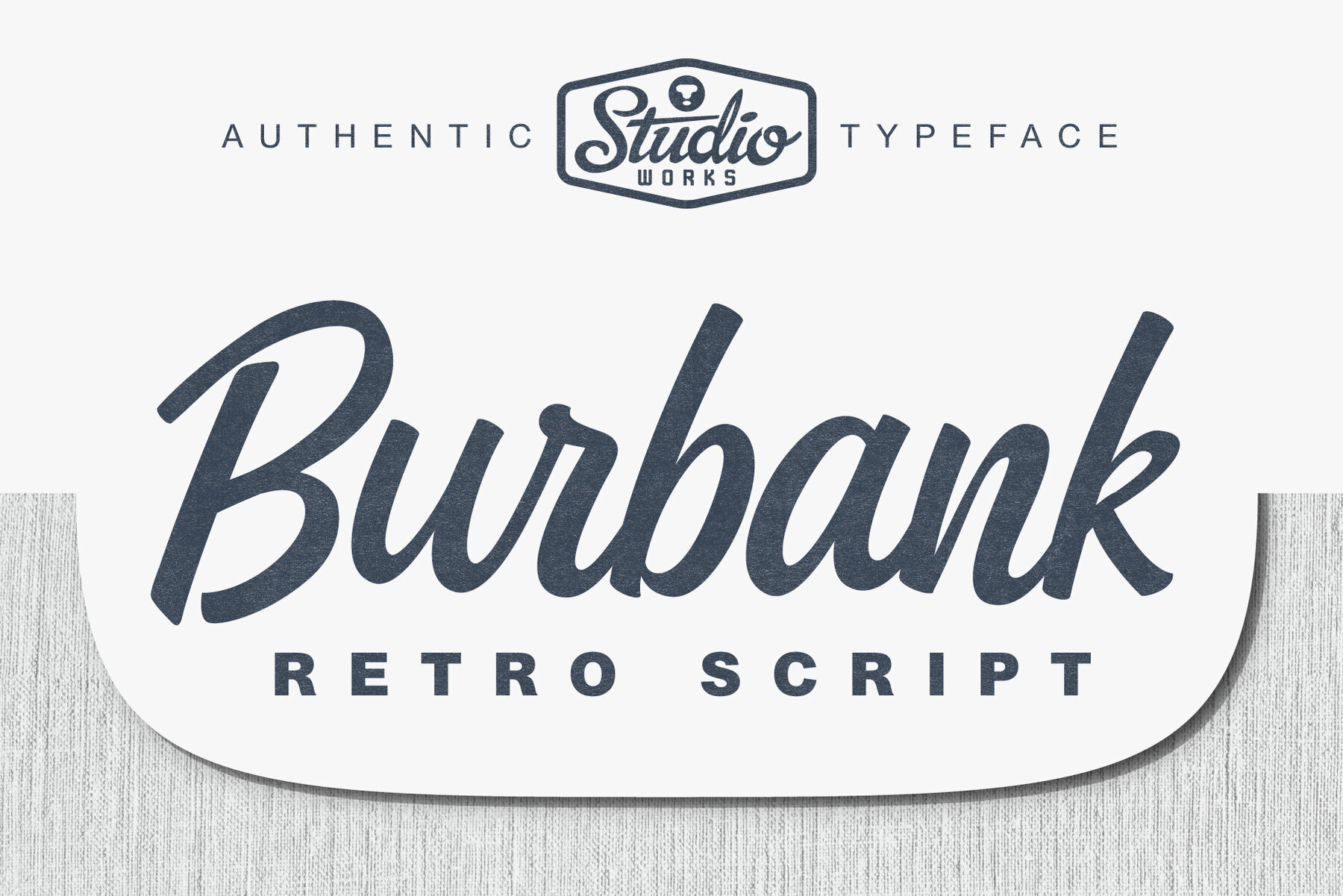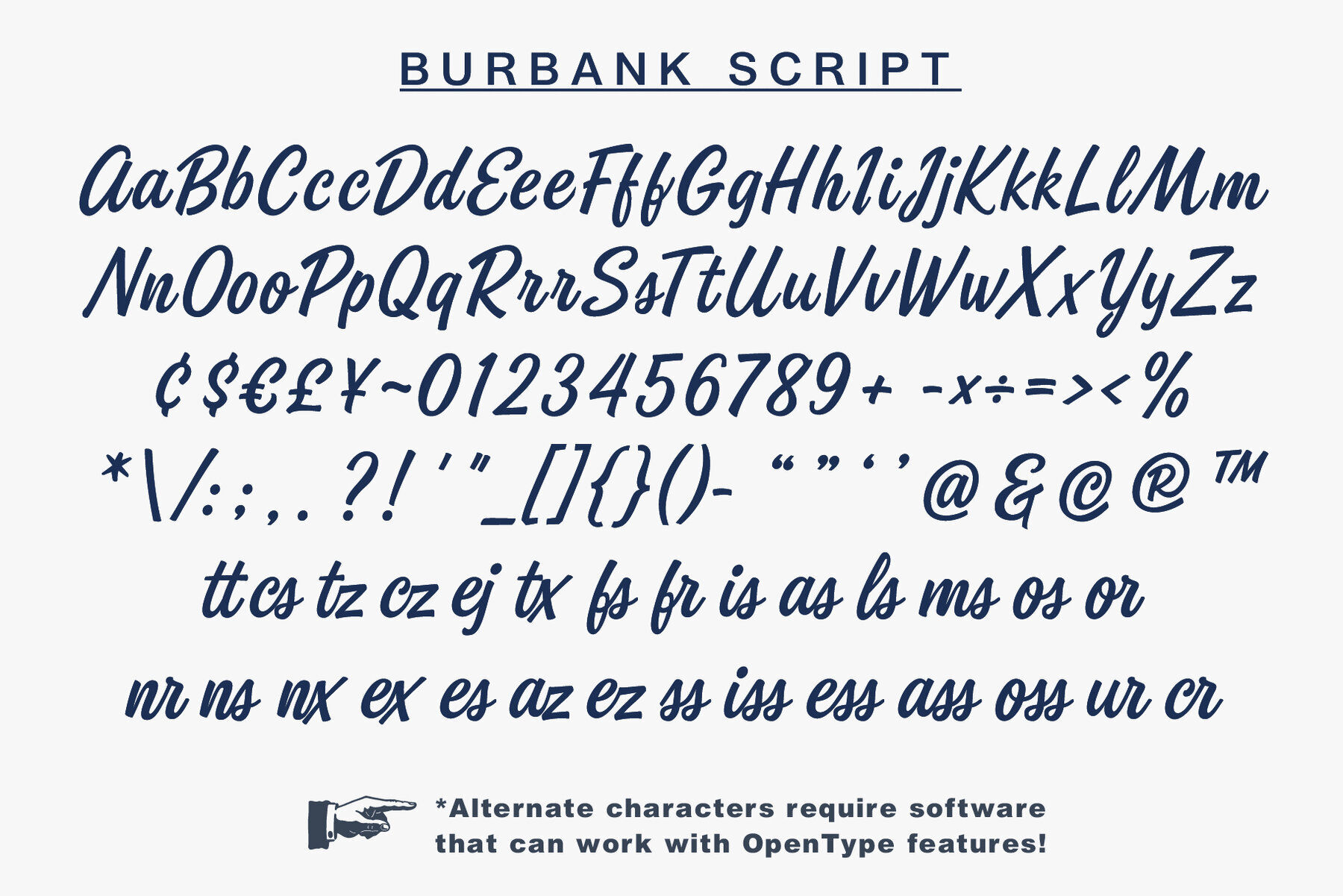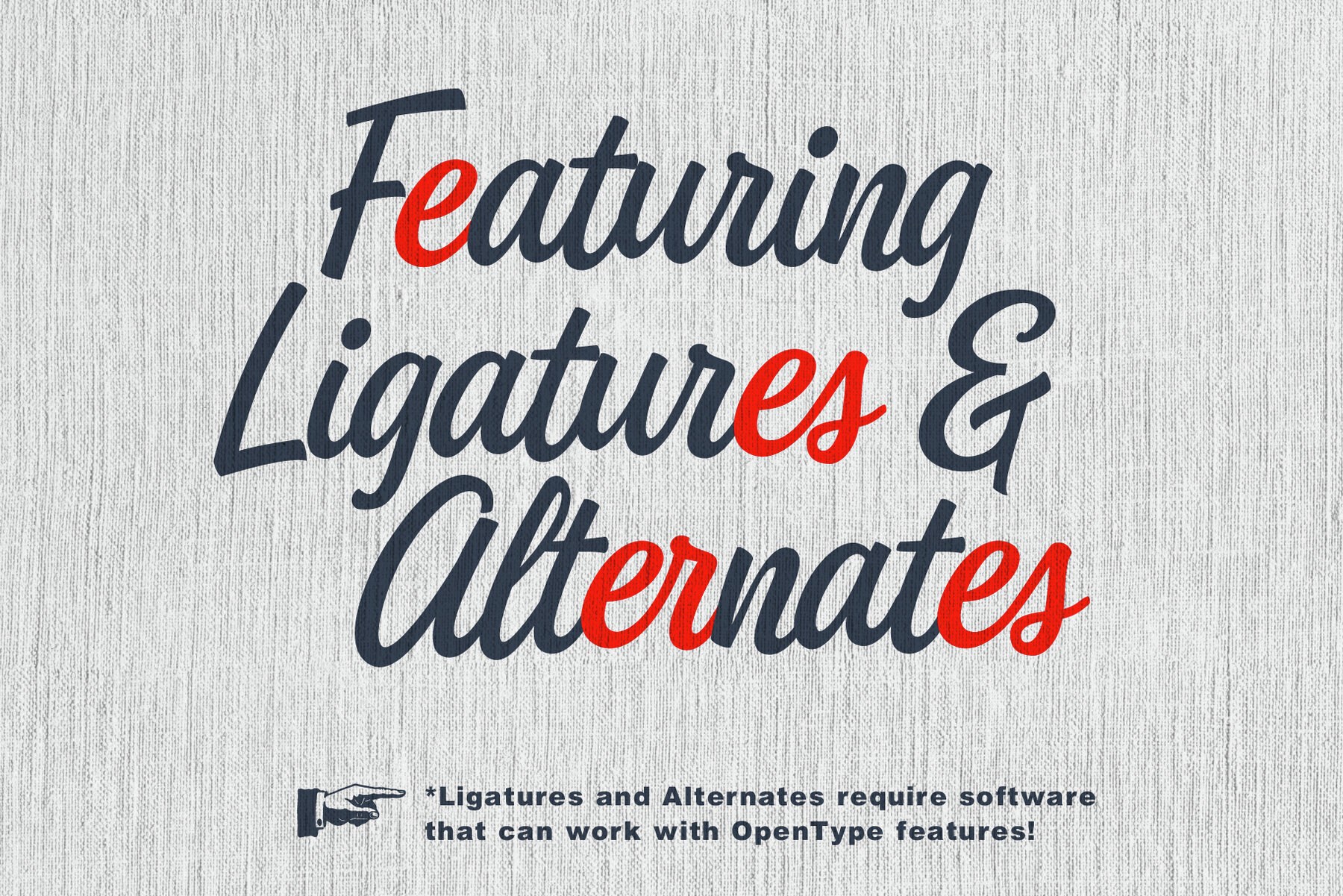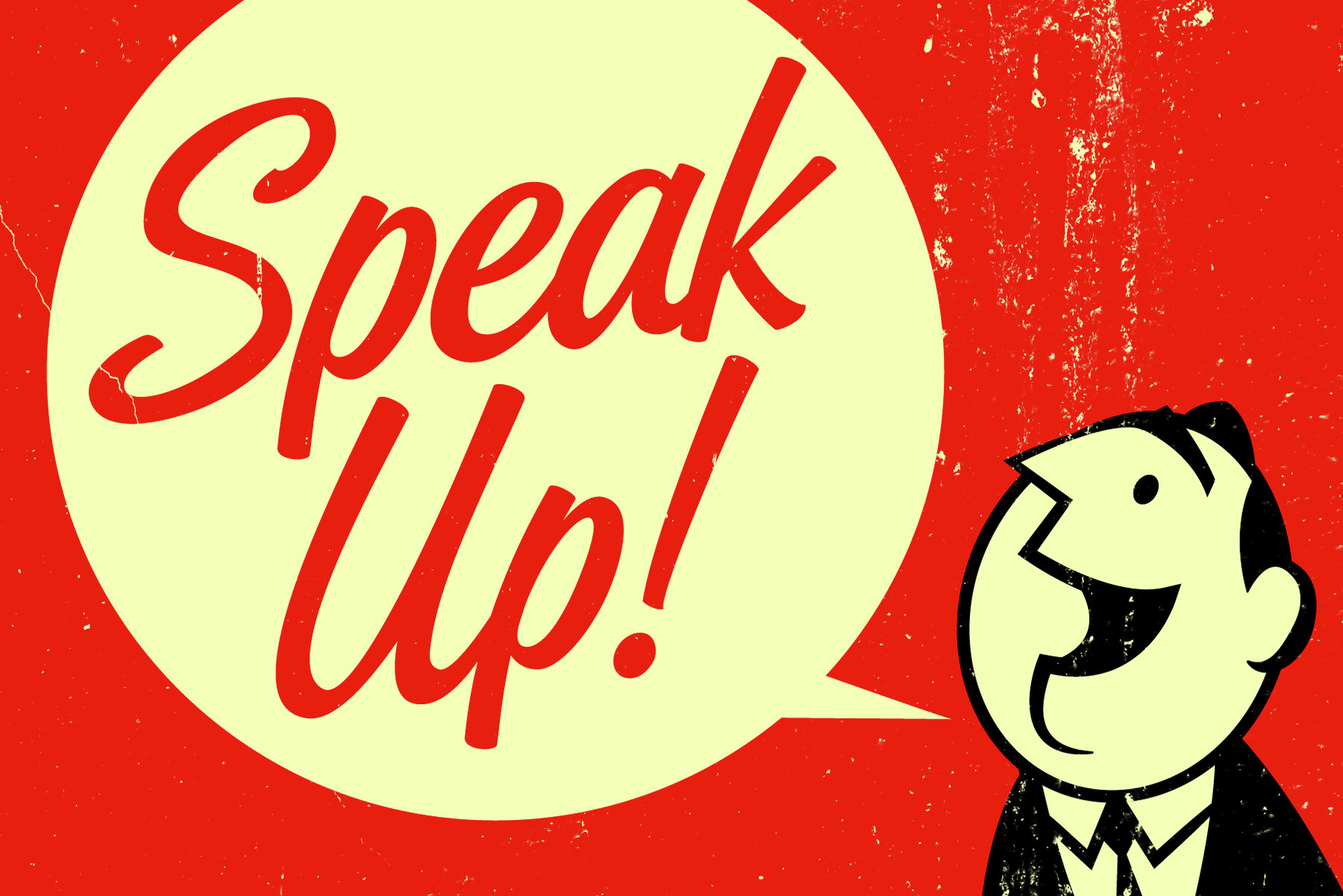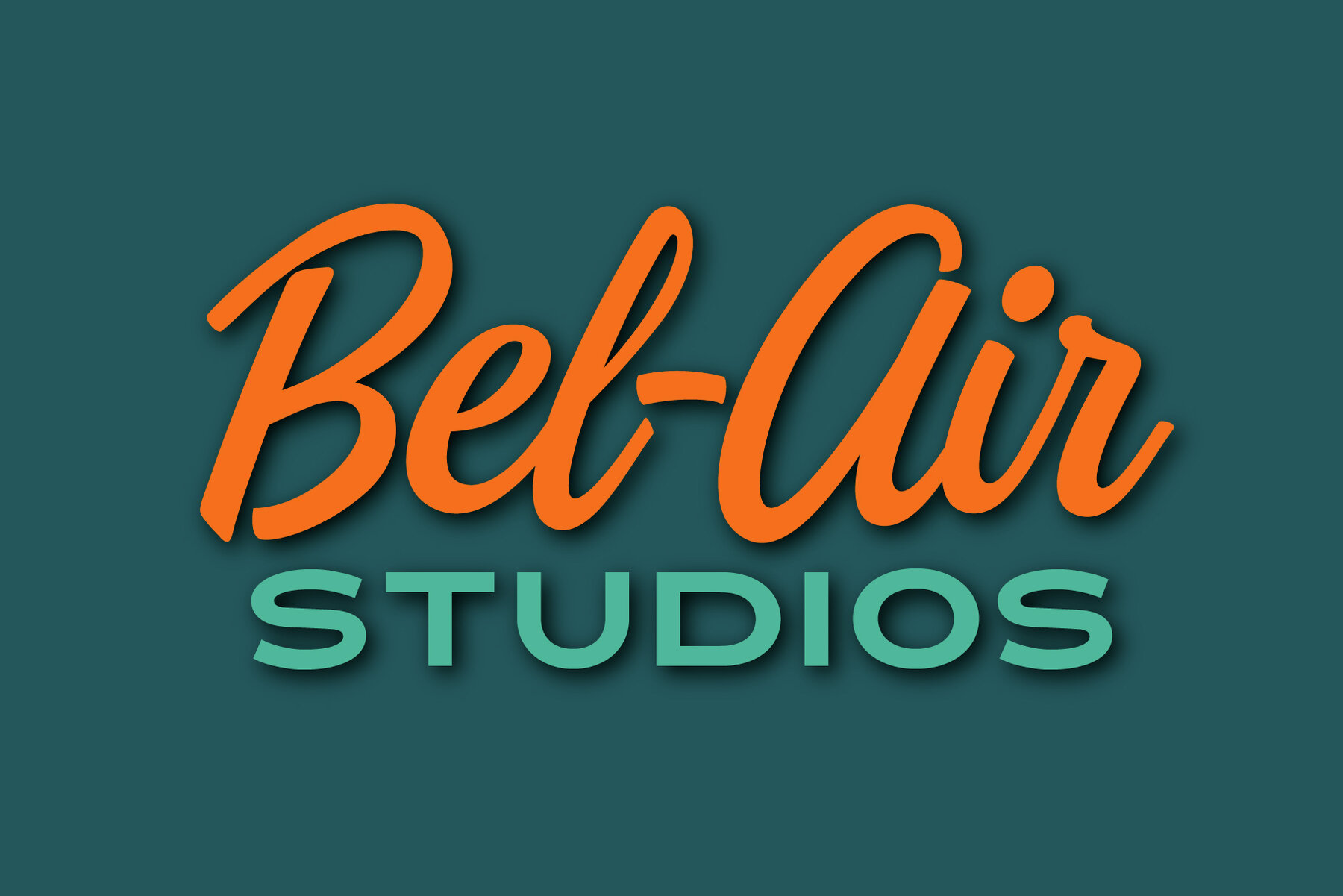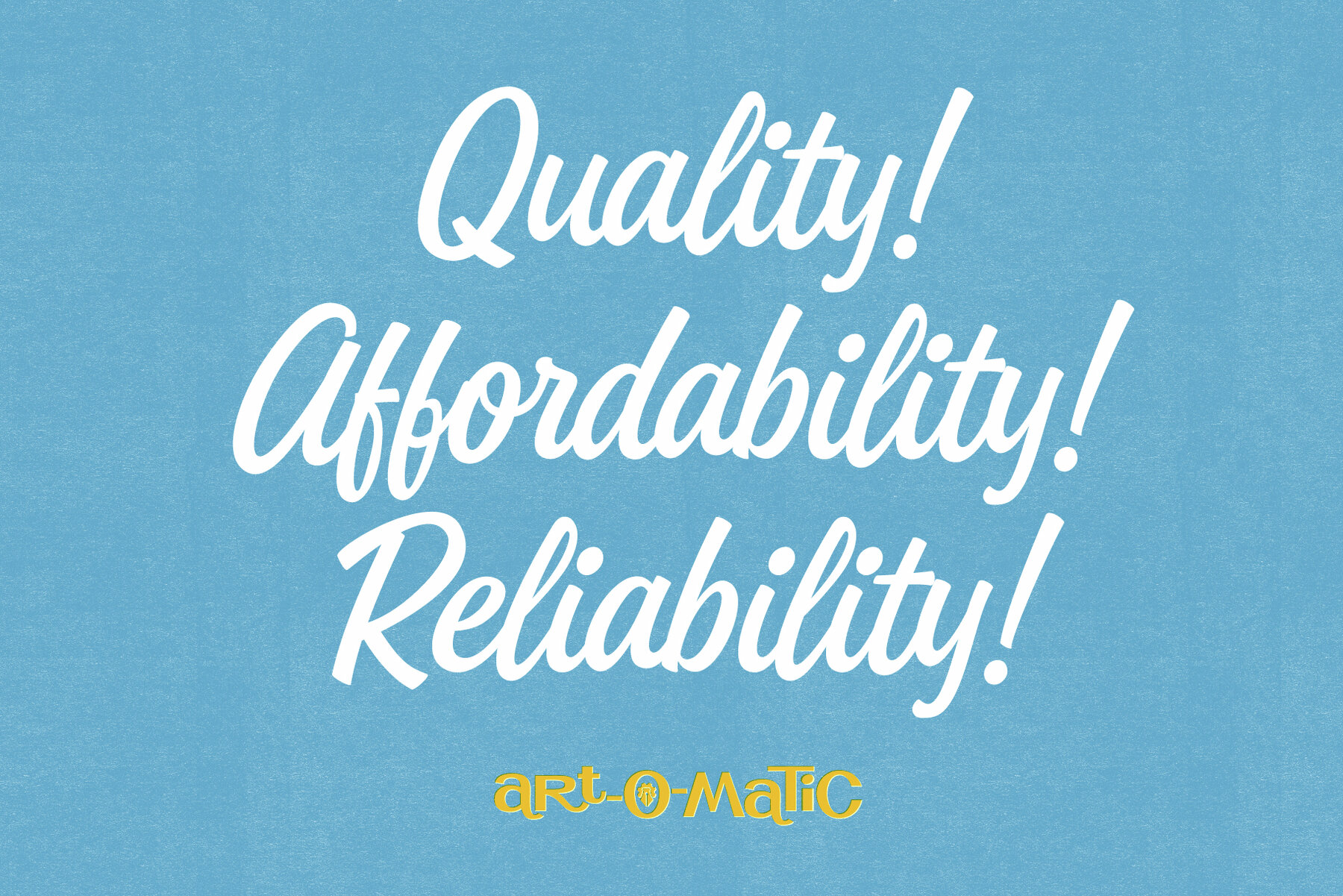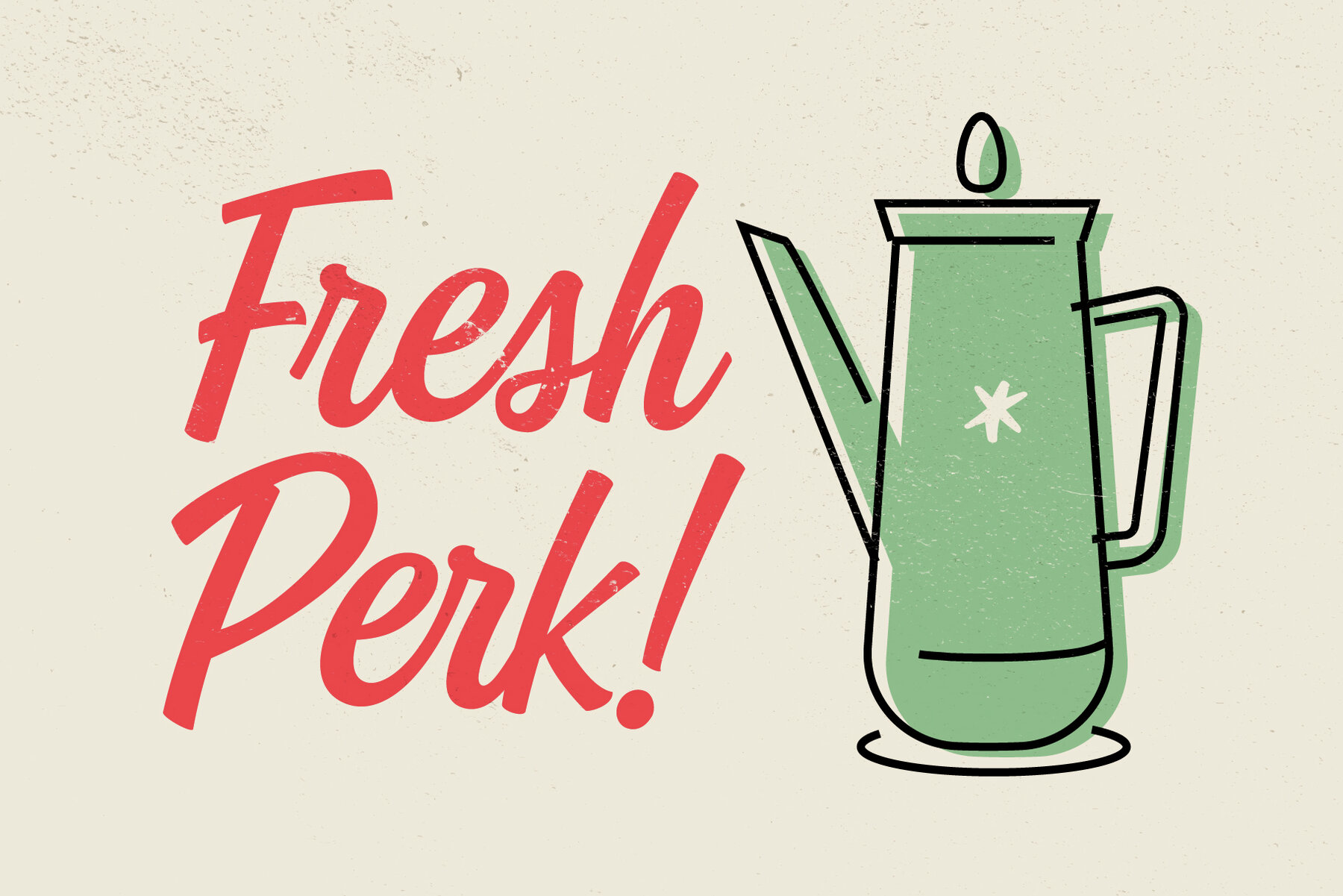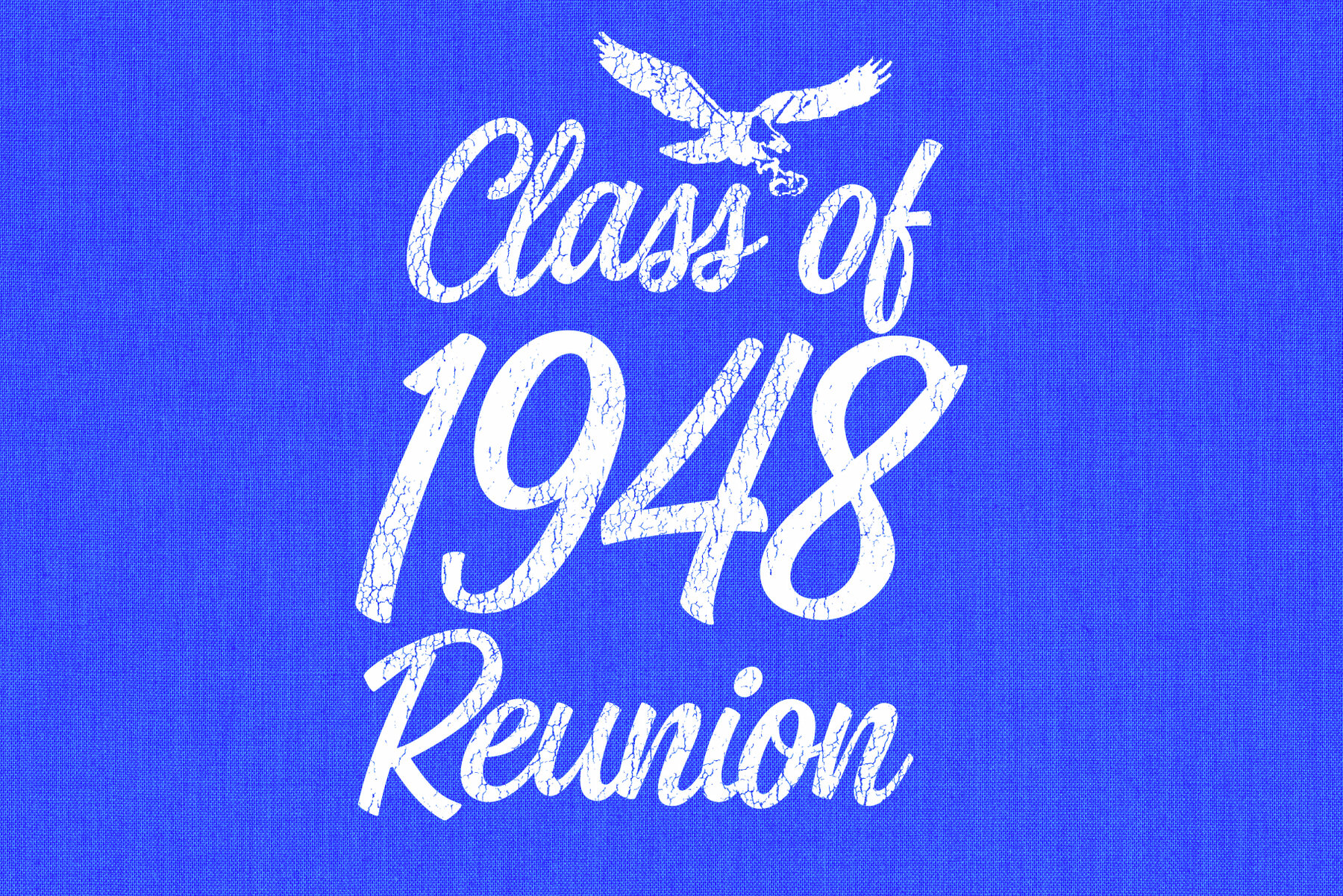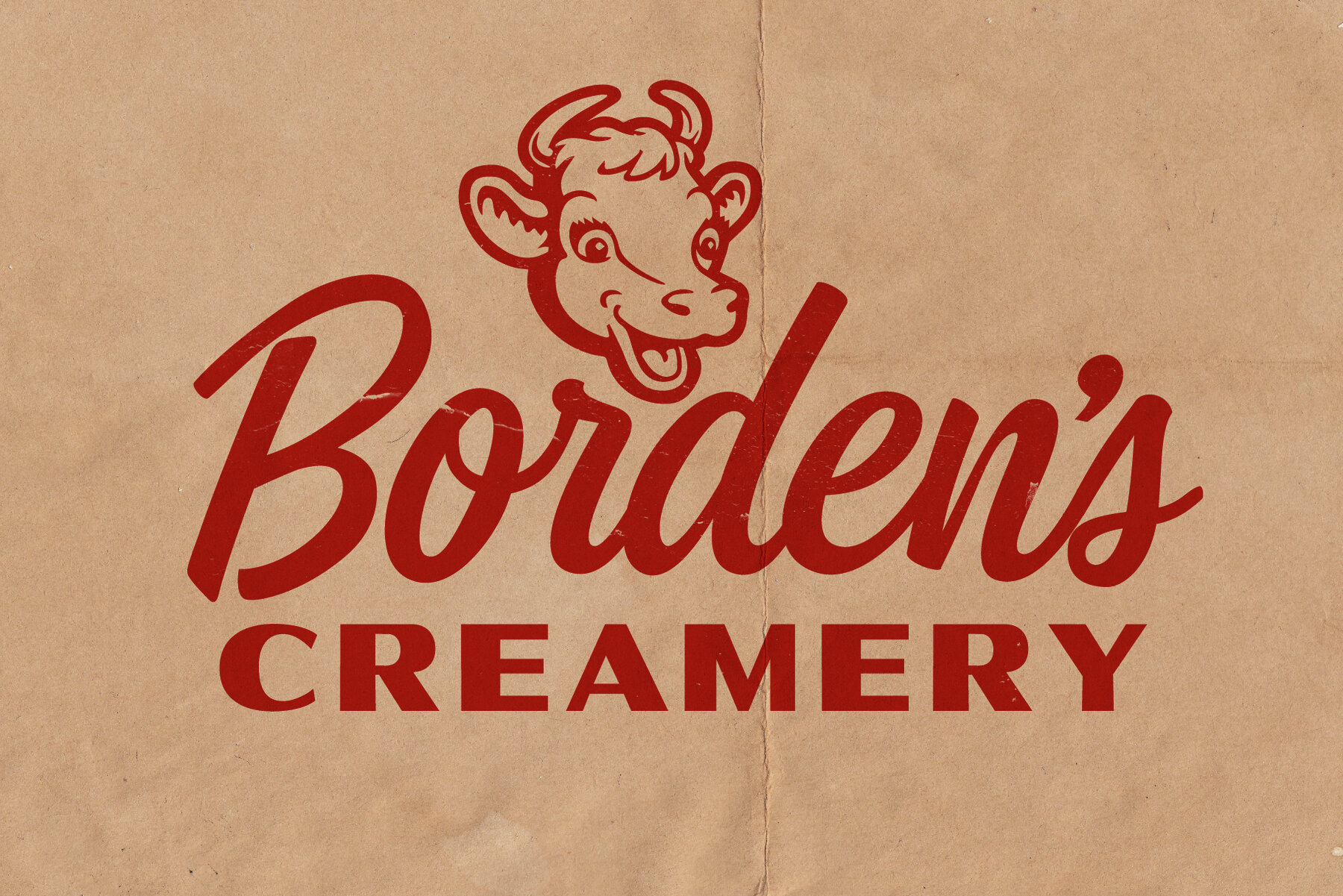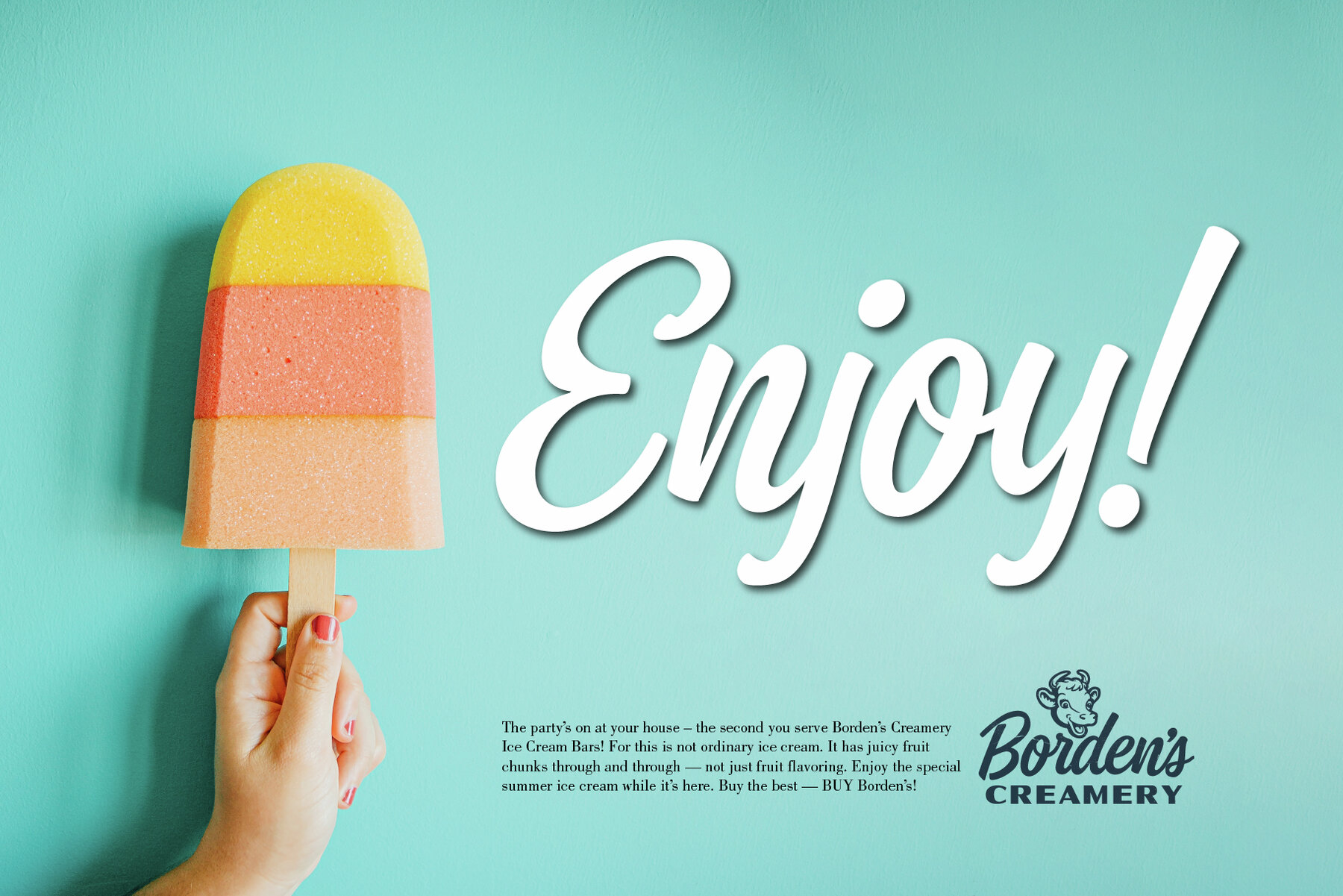
StudioWorks proudly presents •• B U R B A N K •• — a commercially elegant retro script typeface! Inspired by the hand-cut lino scripts of mid-century advertising, Burbank commands attention with its playful display of connective letterforms. The slightly elevated baselines of the lowercase letters emphasize the powerful energy of the capitals to persuade and inform. Utilize Burbank’s suave authority to influence ad copy in endorsements, logos, headlines and posters. Expand your design options with Burbank’s stylistic alternatives and contextual ligatures (made possible by Open Type features). NOTE: These character alternates and ligatures are ONLY available in those applications that support Open Type features. Here’s Burbank’s list of features: Bring the slick, commercial elegance of this retro script to your next design project! Get your copy of Burbank today! NOTE: All featured designs use Burbank. Some images utilize the Papertuity Seamless Texture Pack, the Thoren Sans Type Family and Powell Rugged Display Type — all available from StudioWorks. Vector art not included. My goal is to provide the best quality products, so please provide comments and feedback. If you have any questions, need help with a typeface, or would like to request a new feature, please contact me at thorenson.com. Thank you